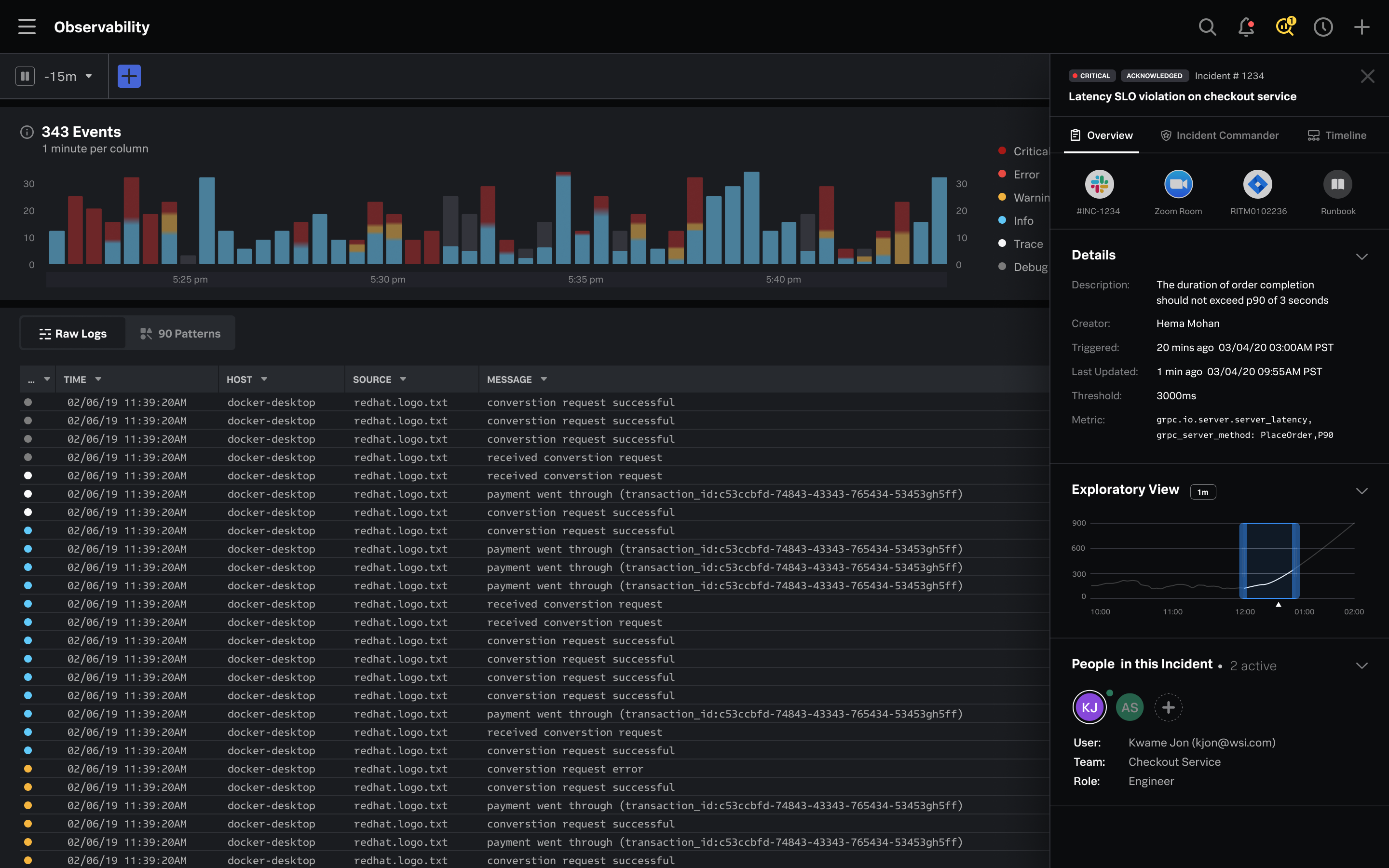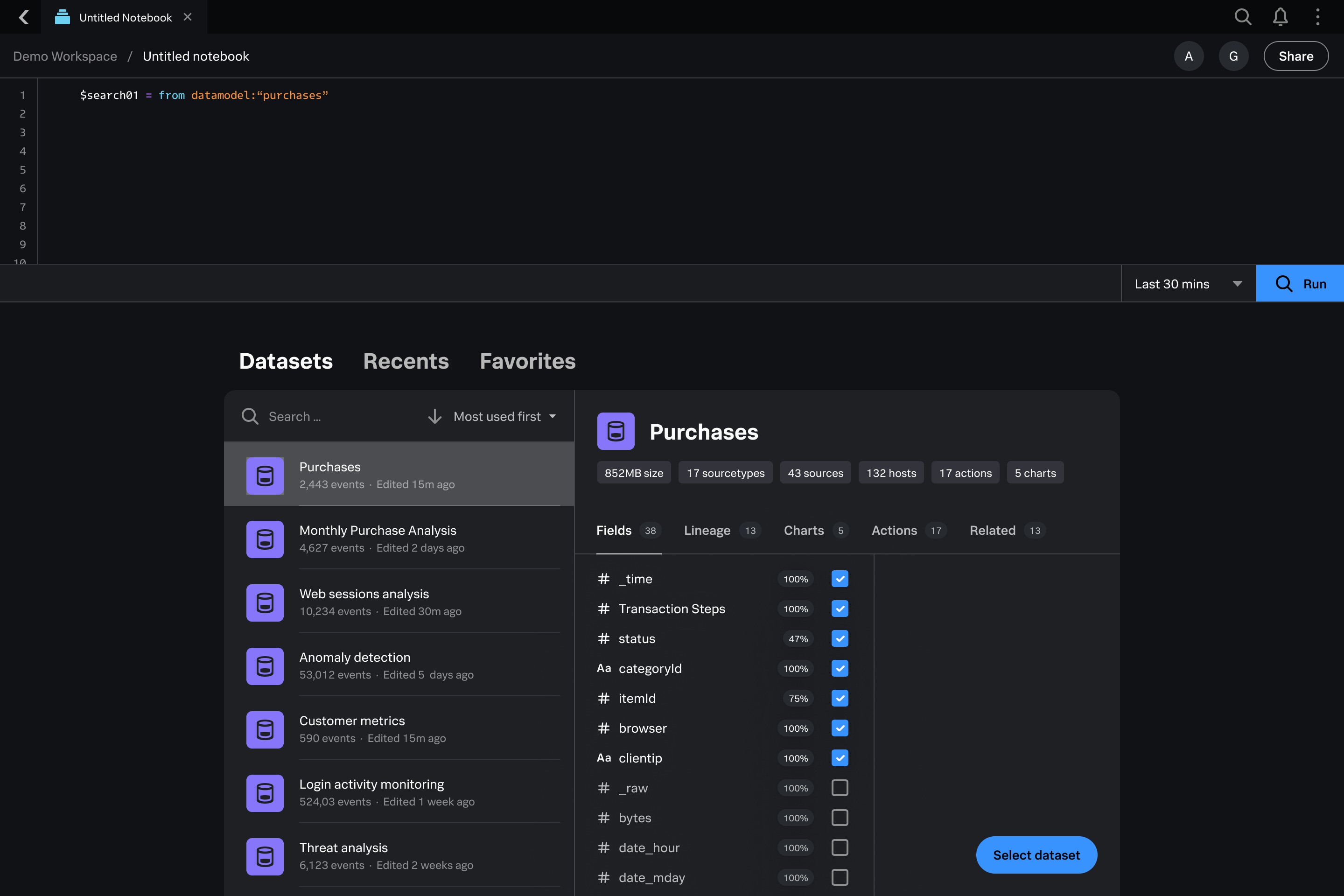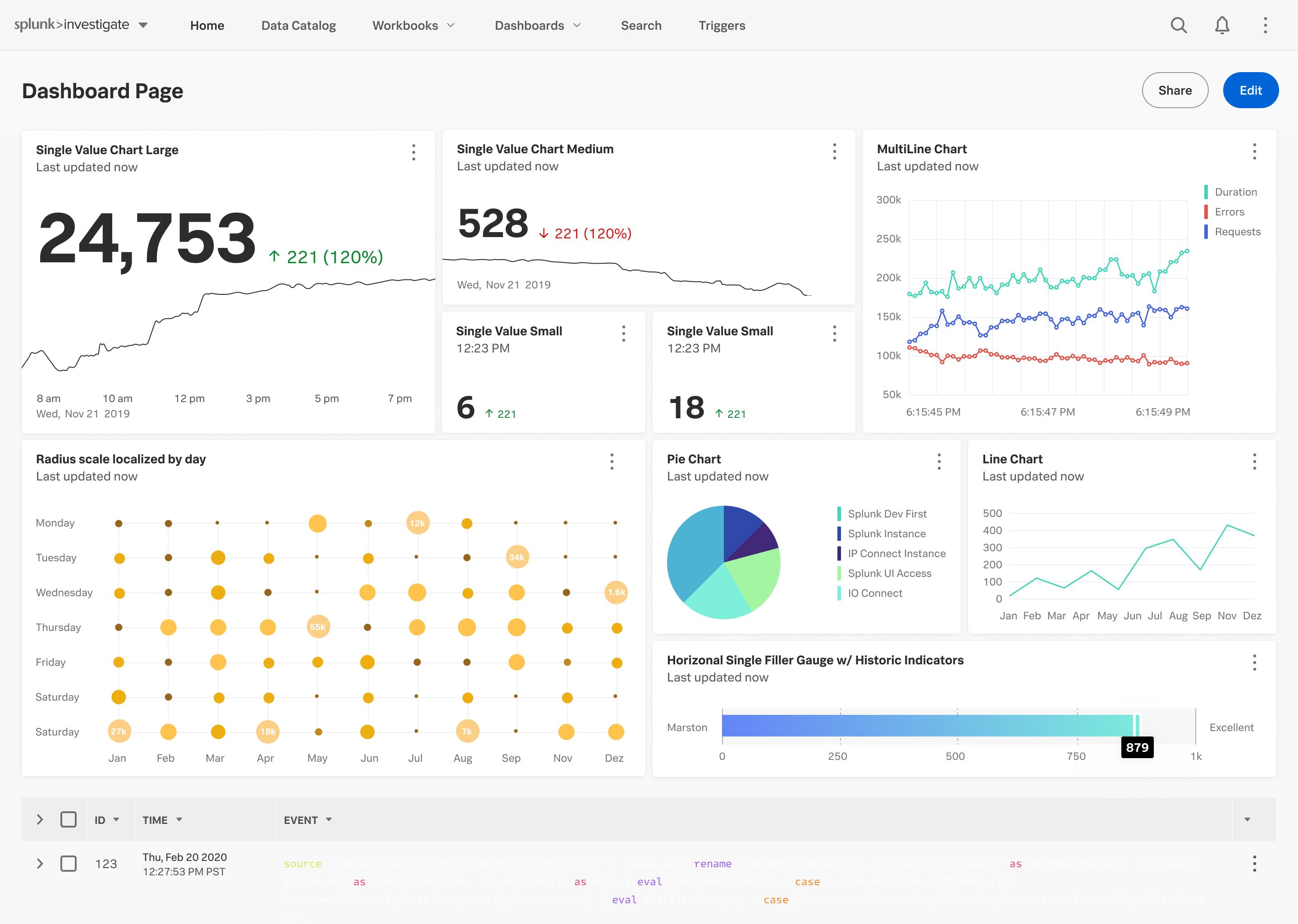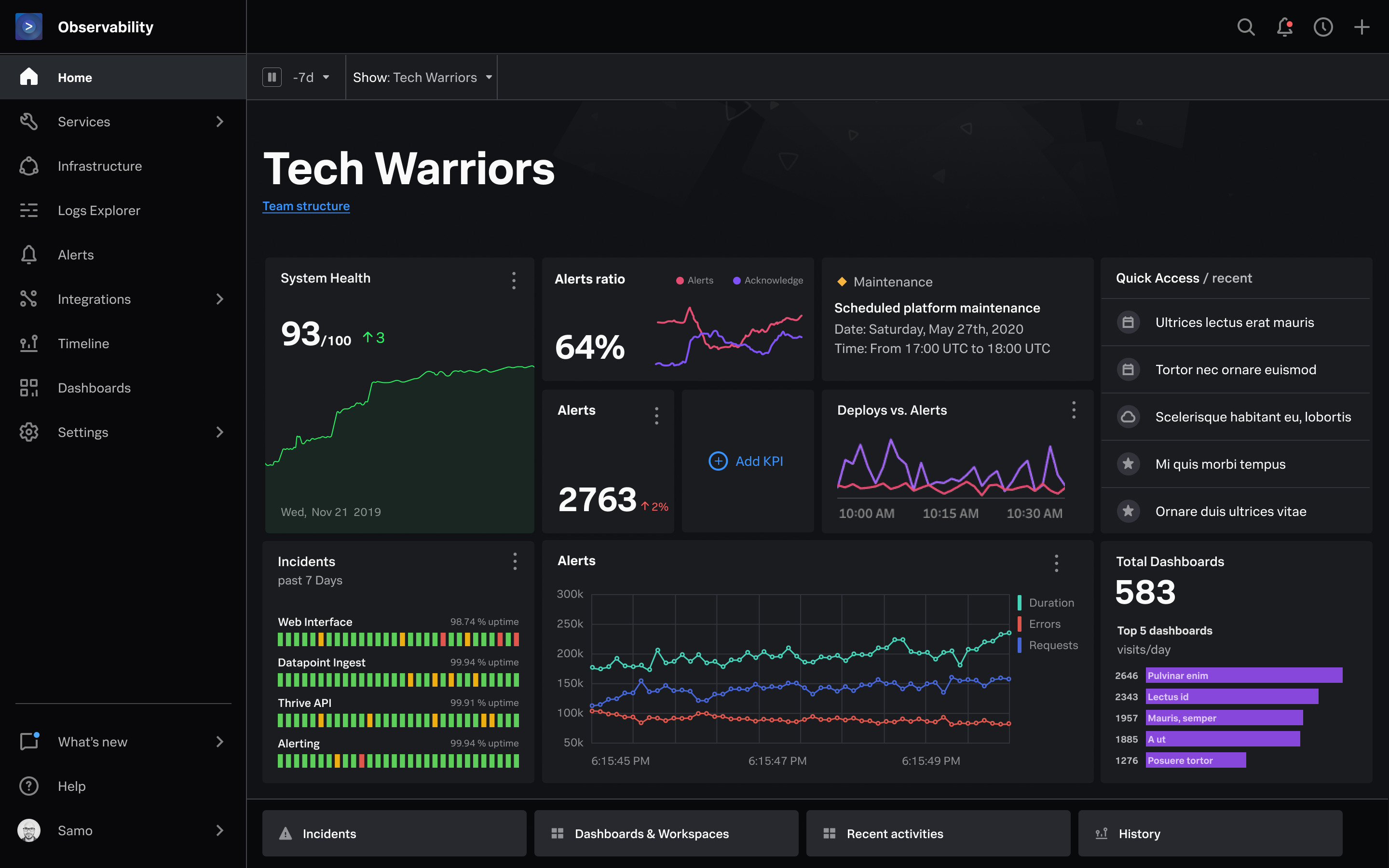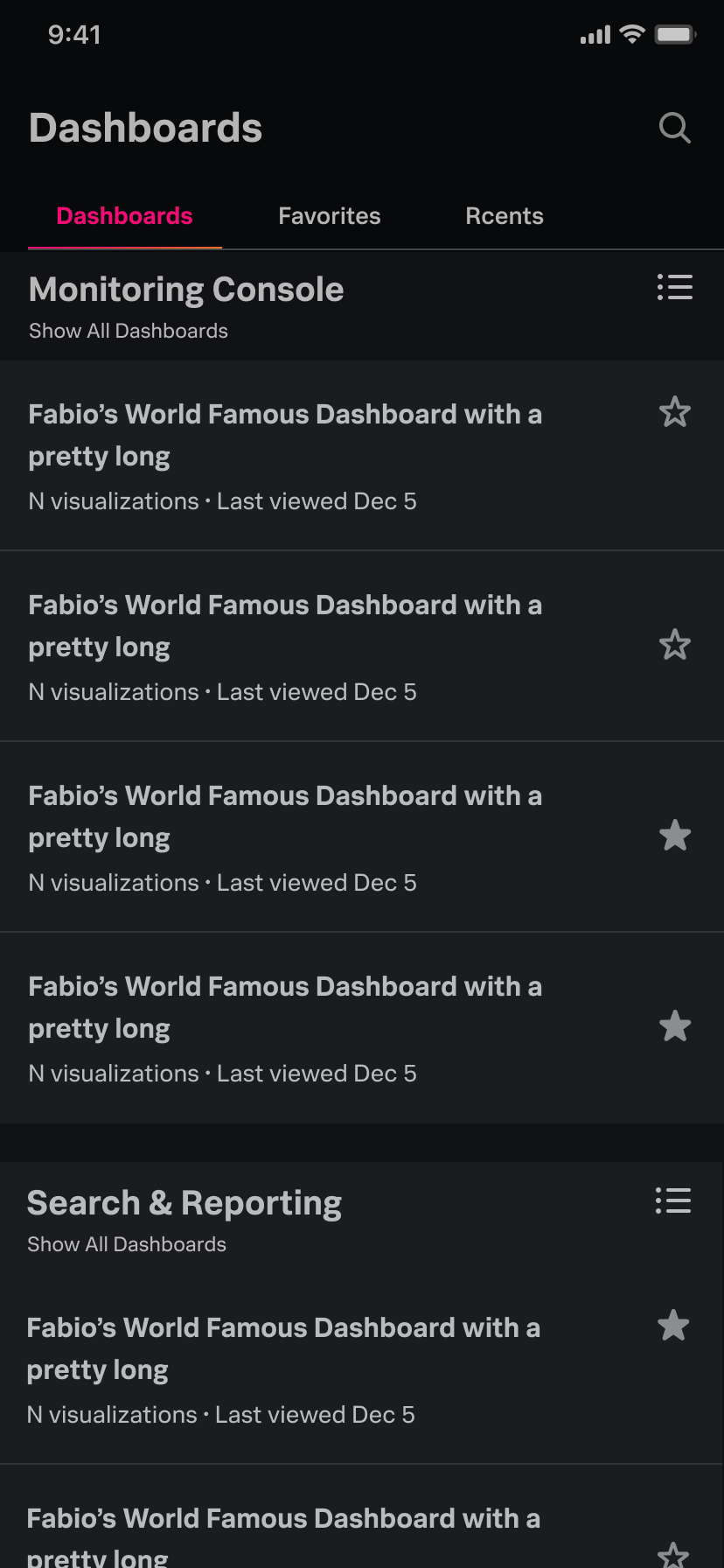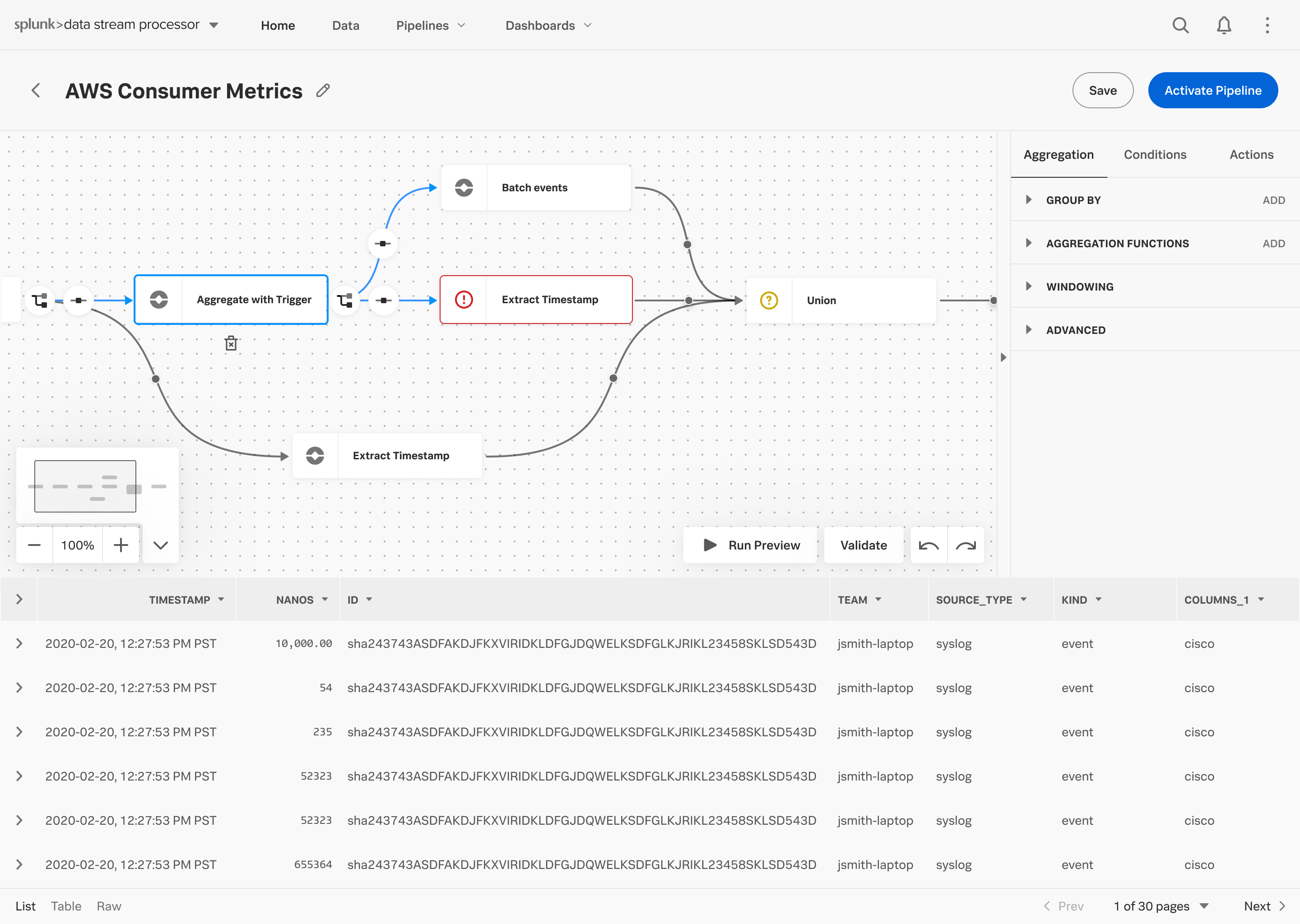
Splunk Data Sans
A Custom Font Suite for Splunk
Splunk Data Sans
A Custom Font Suite for Splunk
To overcome limitations in their existing typeface, and to infuse personality, we worked with Splunk to develop a new ultra-performant font family that exudes tranquillity, seamlessly integrates with their existing brand identity, and ensures that data remains the hero.
Splunk Data Sans, Custom Font Suite, 2019–2020
Writing Systems
Latin
Language Support
Over 790 languages
Normal
Condensed
Extended
Monospace